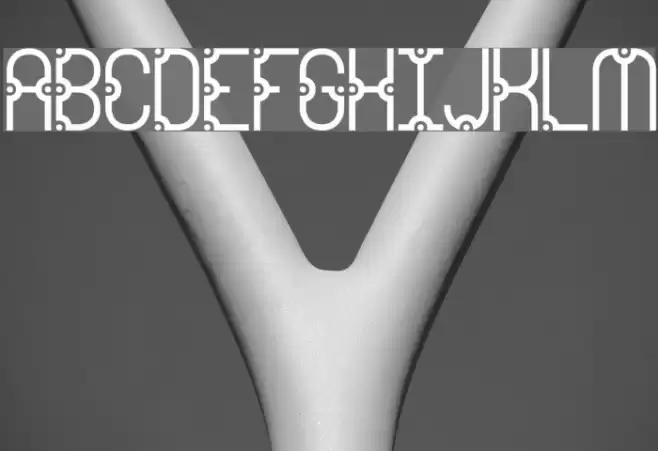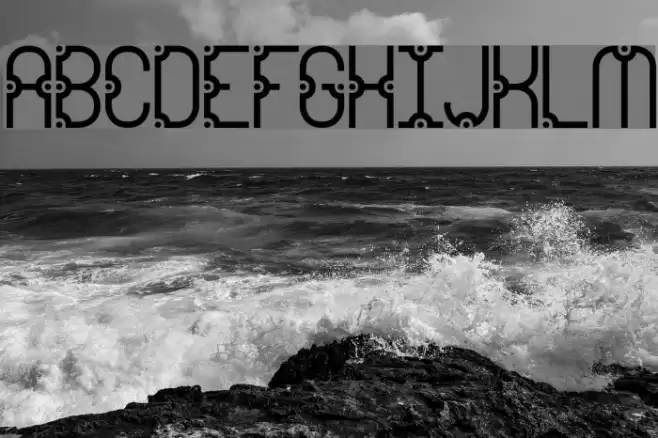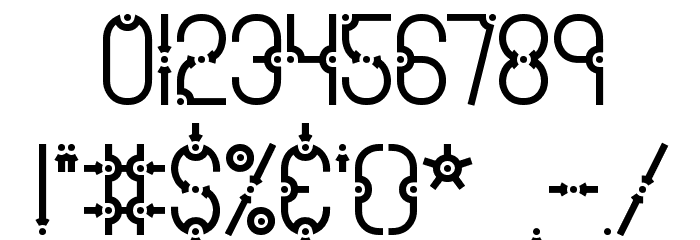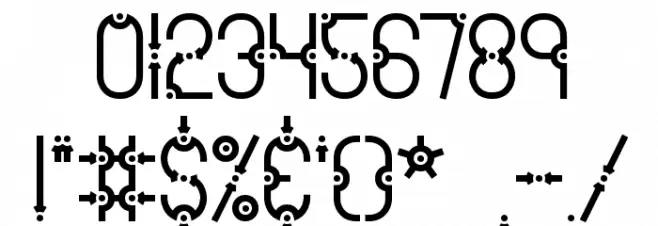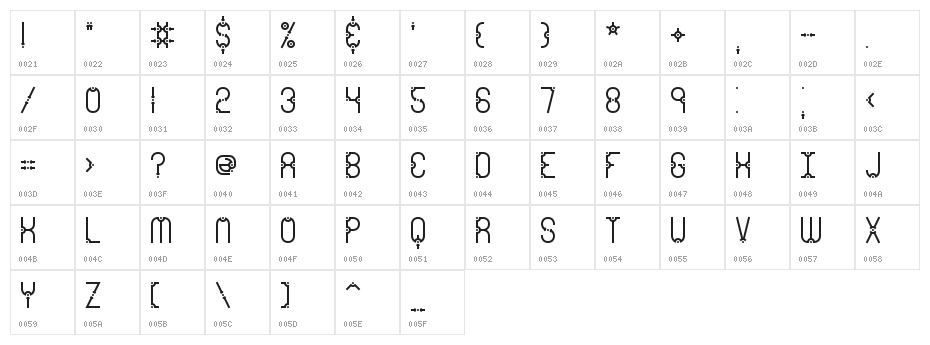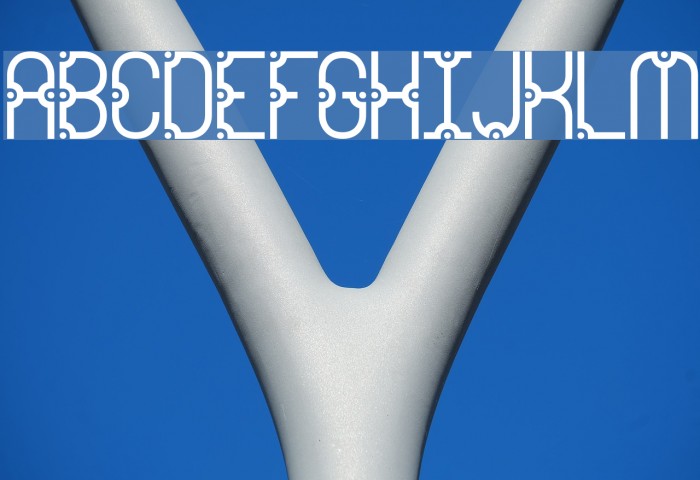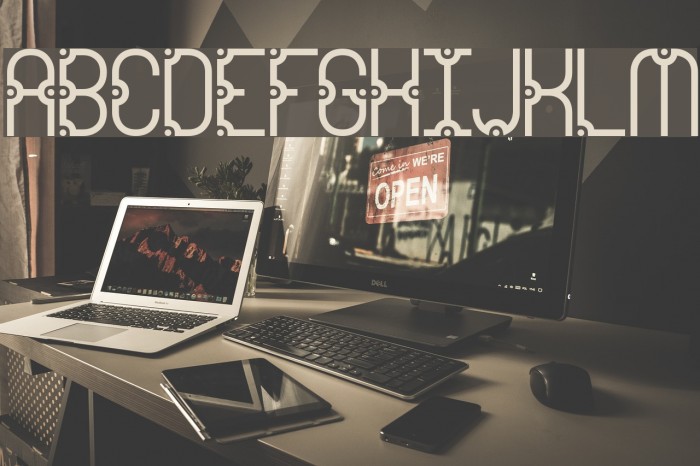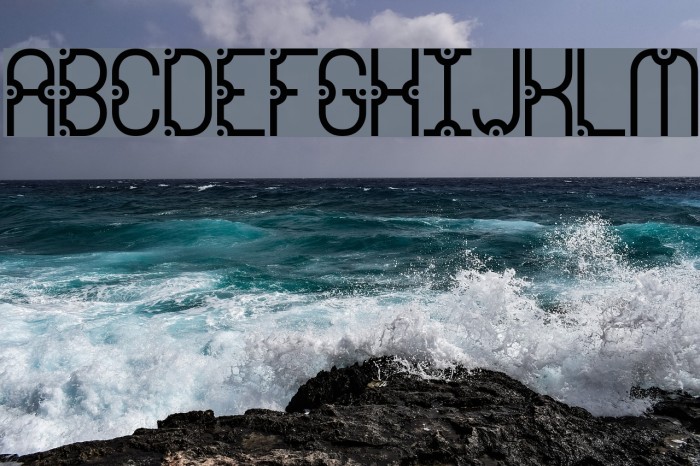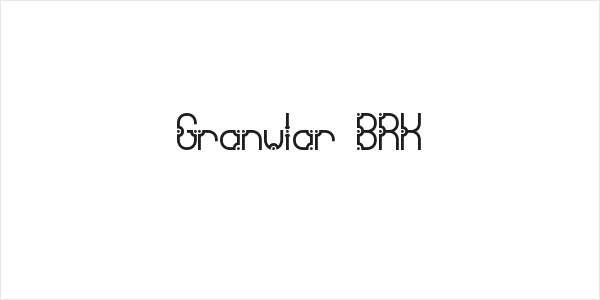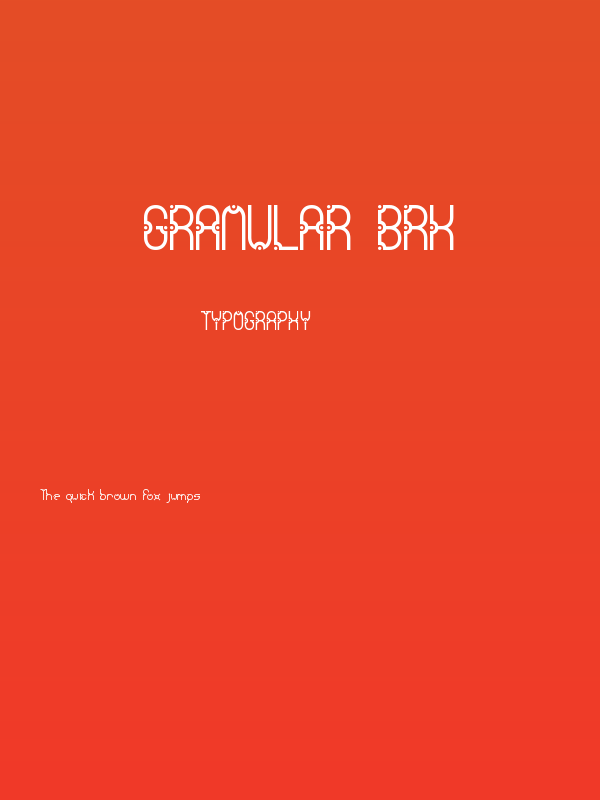
Granular BRK Font
Granular BRK Description
This font features a unique and futuristic design with a distinct geometric style. Each character is composed of bold lines and circular elements, creating a mechanical and digital appearance. The uppercase and lowercase letters maintain a consistent aesthetic, with rounded edges and precise angles. Numbers and special characters follow the same design principles, ensuring uniformity across all glyphs. The font's innovative structure makes it stand out, ideal for projects that require a modern and technological feel.
A futuristic, geometric font with bold lines and circular elements from Decorative fonts.
- Proposed Projects: Ideal for tech-themed designs, digital art, sci-fi posters, and innovative branding.